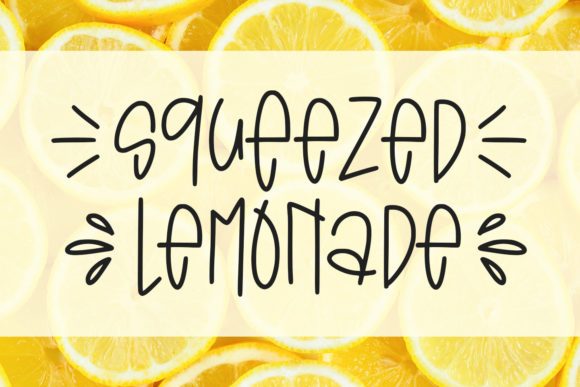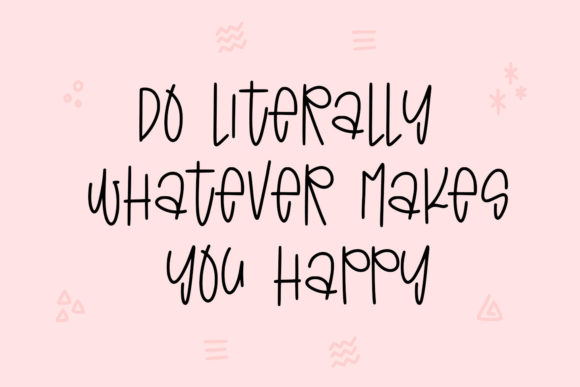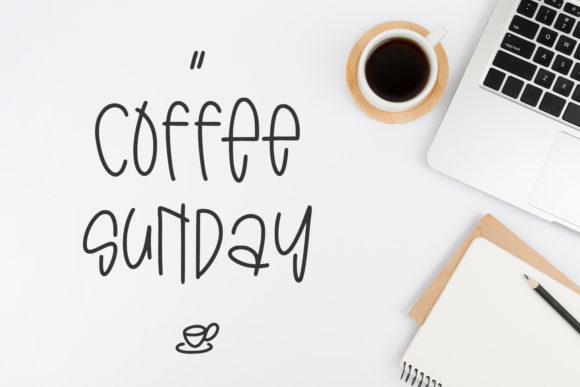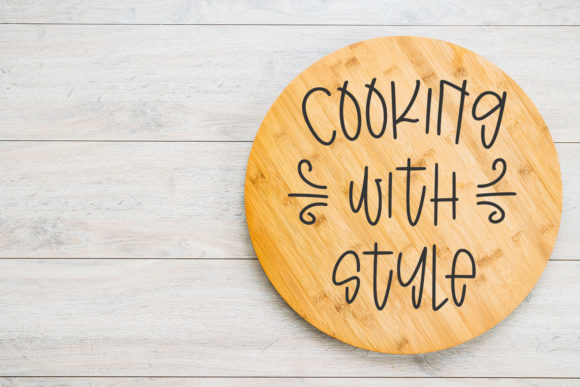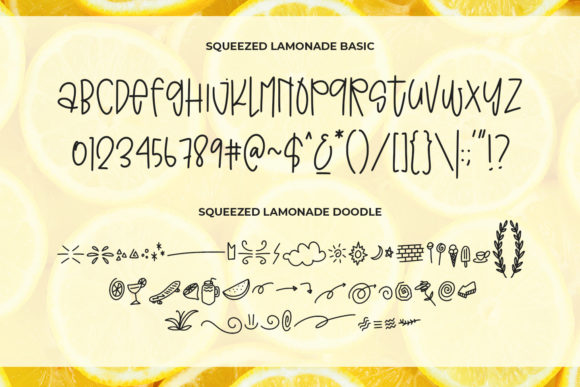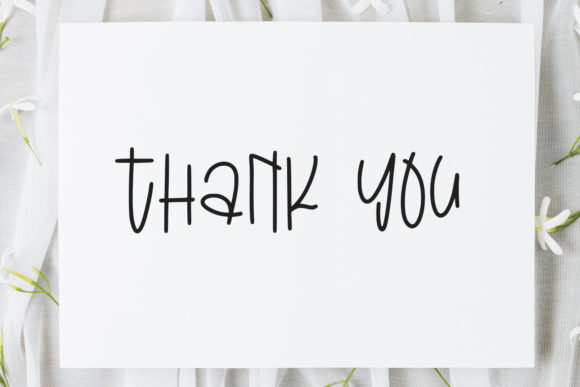
Squeezed Lemonade Font
About Squeezed Lemonade Font
Squeezed Lemonade is unique duo font (handwritten and dingbats). It is great for quotes, logo, embroidery, card, banner, social media and anything your project requires.